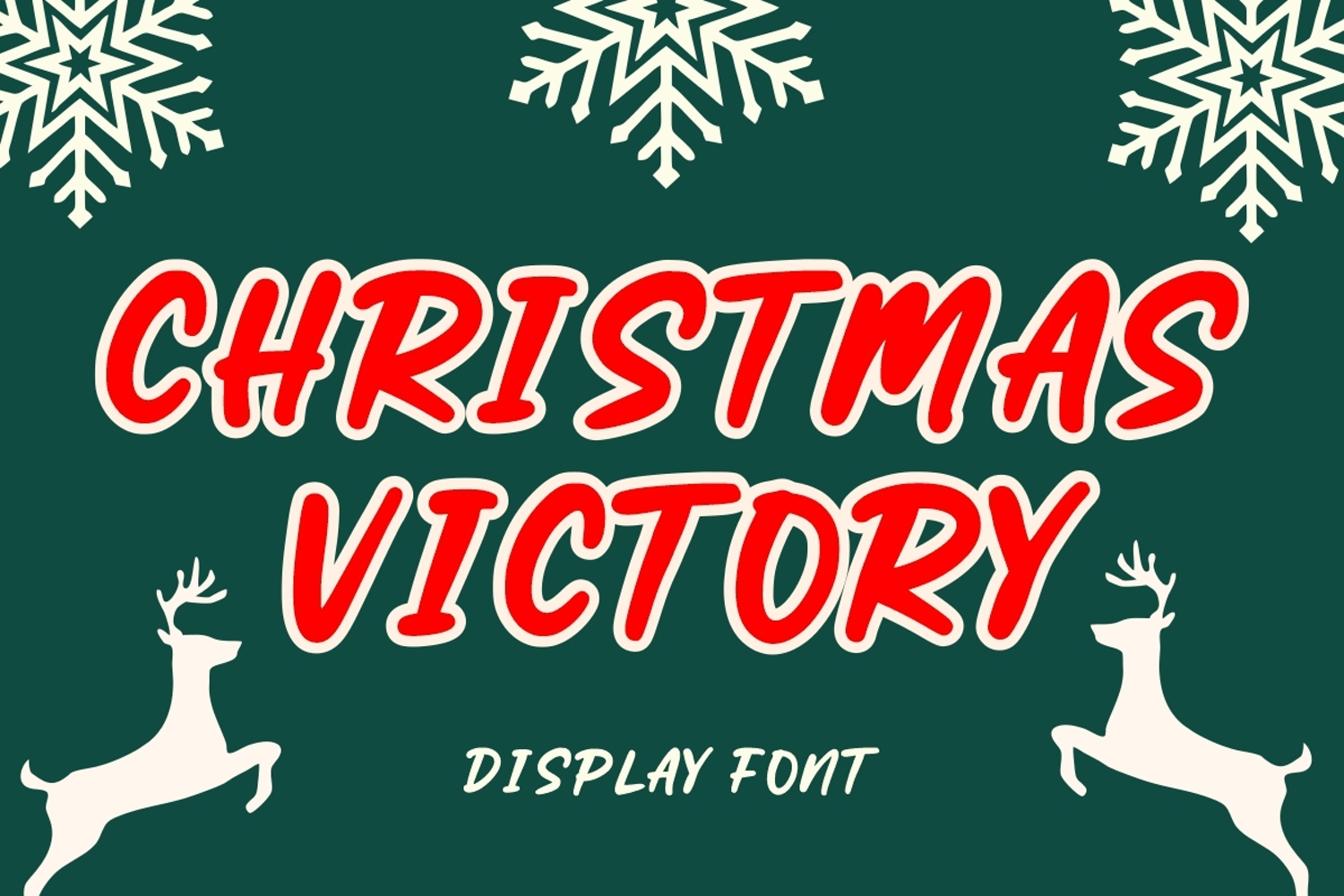
Christmas Victory
Christmas Victory is a bold, joyful display font designed to inject immediate festive energy and playful cheer into any holiday project.
This typeface features thick, rounded, hand-drawn strokes and a prominent white outline that perfectly mimics a classic, high-energy holiday poster or vintage cartoon lettering. Its uniqueness lies in its powerful, all-caps presence and friendly, slightly distressed texture, making it both highly readable and irresistibly fun. It is the perfect choice for Christmas party invitations, market banners, festive apparel (like ugly sweaters), children’s holiday books, and high-visibility retail promotions that need to grab attention with a strong, jolly voice. This font is a guaranteed way to bring the spirit of the season to life.